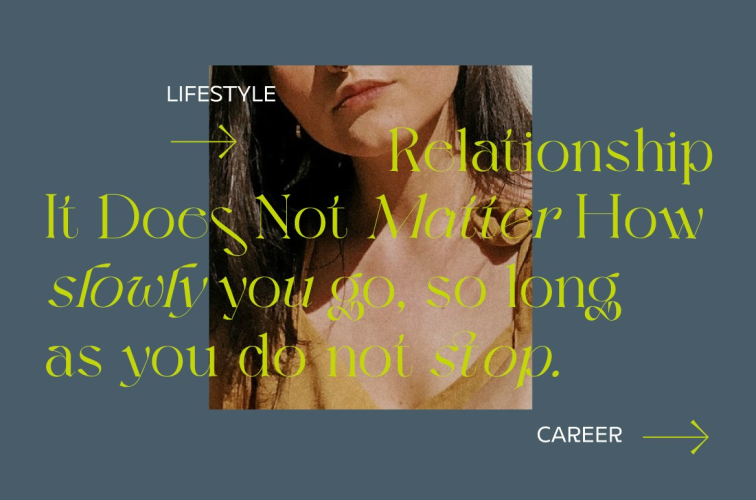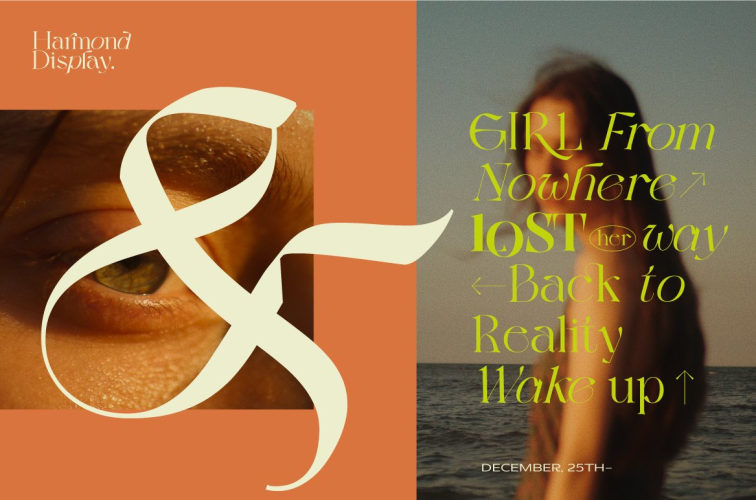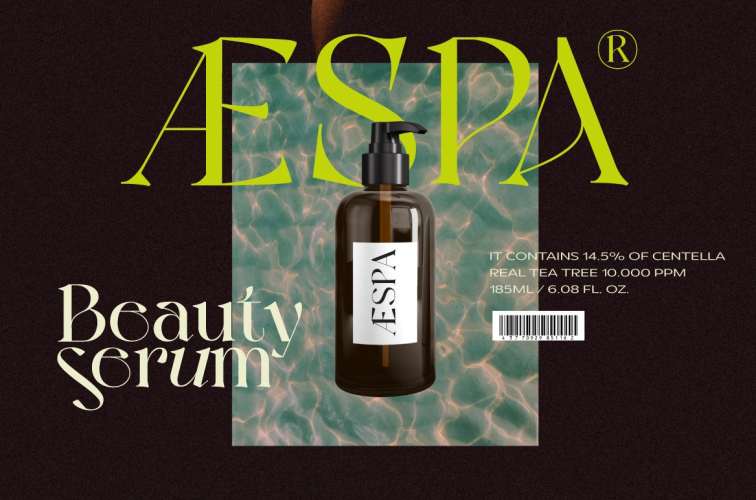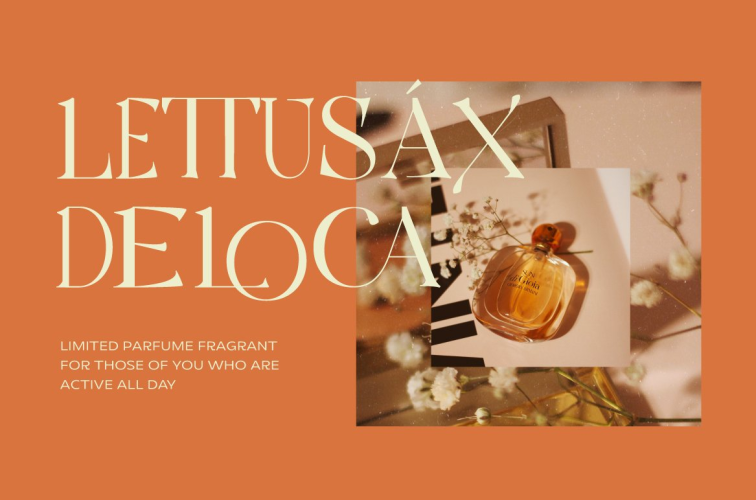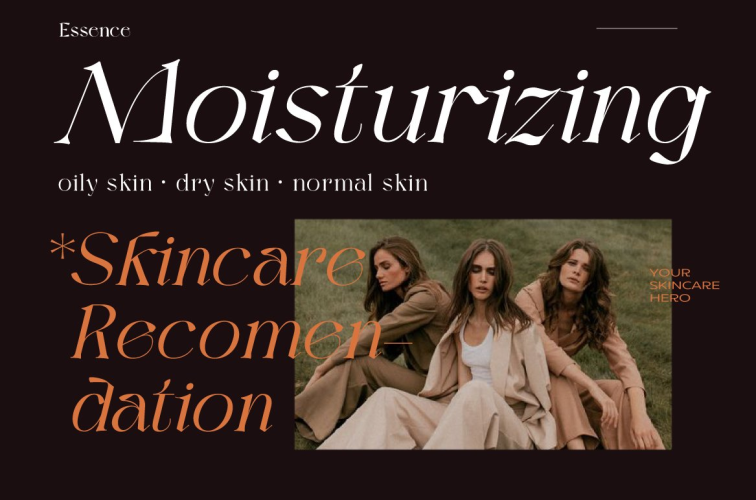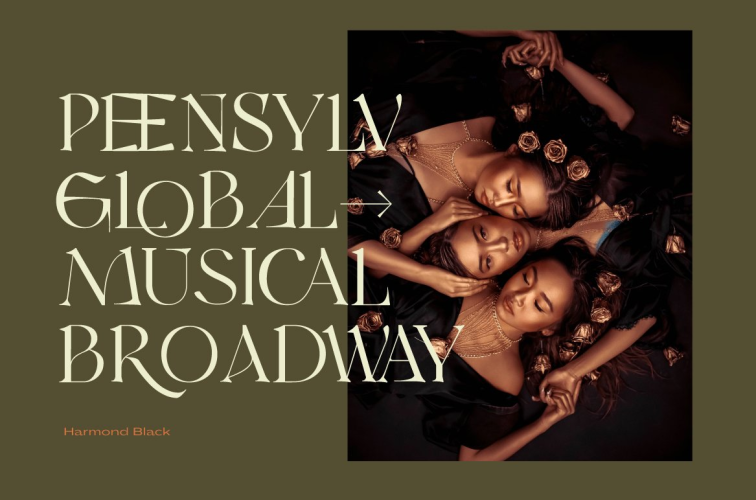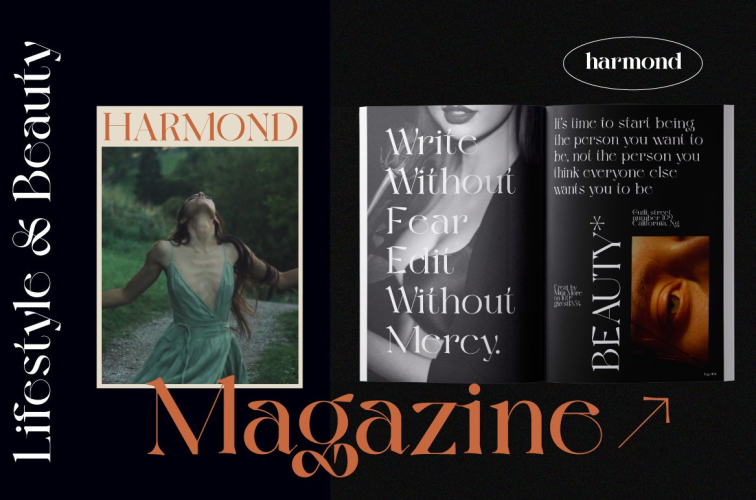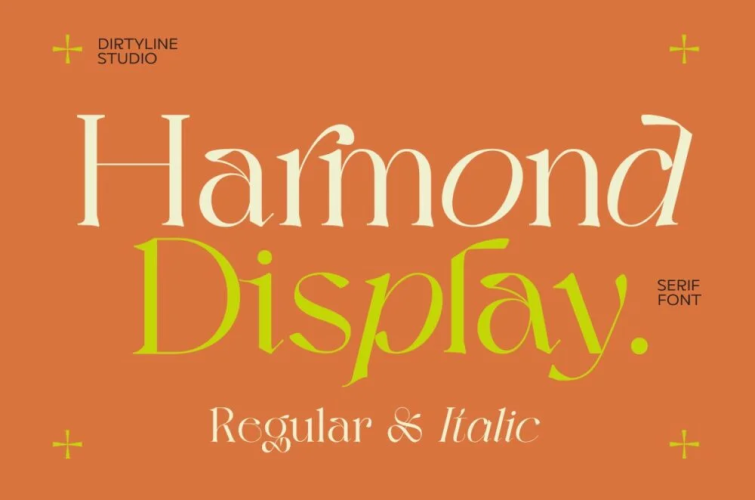
Harmond Font
Harmond Font is a new fresh & modern serif with a strong style, a dancing baseline! So beautiful on invitations like greeting cards, branding materials, business cards,…
Harmond Font is a new fresh & modern serif with a strong style, a dancing baseline! So beautiful on invitations like greeting cards, branding materials, business cards, quotes, posters, and more!
Harmond Display Typeface is part of a strong and modern display family. This typeface is both impressive at display sizes and easily readable in text size, while the sharp shapes of the triangular serifs and the distinctive letter shapes show their strength in logo design and impressive editorial use. the font is ready to be like a top model on the design catwalk, making your projects look classic but contemporary, finely tuned but assertive, and elegant as the best luxury fashion.
Where Harmond Font works best
Reports, white papers and book interiors hold the eye longer when the text face has real serifs; Harmond Font keeps that rhythm without looking old-fashioned.
Food, spirits and cosmetics brands lean on serif wordmarks to suggest age and care. Harmond Font gives that signal at wordmark size.
Set Harmond Font for the body of an award or a diploma and keep the recipient name in a script; the pairing is what makes a document feel official.
It sits in the Serif Fonts group and reads as branding, classic, display, elegant. That makes it a candidate wherever those qualities help: headings, packaging, social graphics and brand work. Set it at the size you plan to use before deciding.